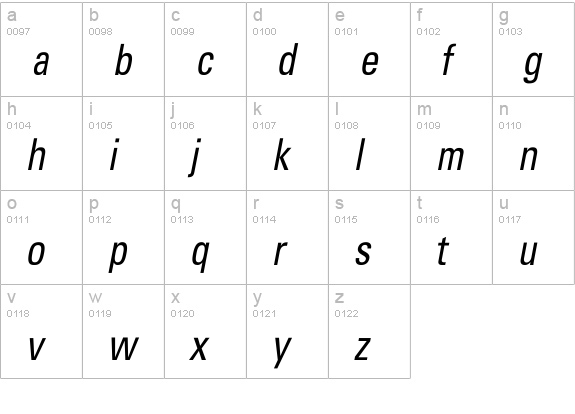
Beetham-CondensedOblique font is a stylish and modern typeface that exudes elegance and sophistication. Its condensed design and sleek oblique slant give it a unique and contemporary look, making it perfect for a wide range of design projects. The clean lines and subtle curves of this font make it highly versatile and suitable for both headings and body text. Furthermore, Beetham-CondensedOblique font is available for free download at FontsMarket.com, making it accessible to designers and creatives looking to add a touch of sophistication to their projects without breaking the bank. Whether you're designing a website, creating a logo, or working on a print project, Beetham-CondensedOblique font is sure to elevate your design and make a lasting impression. Download it today and give your projects a stylish edge!